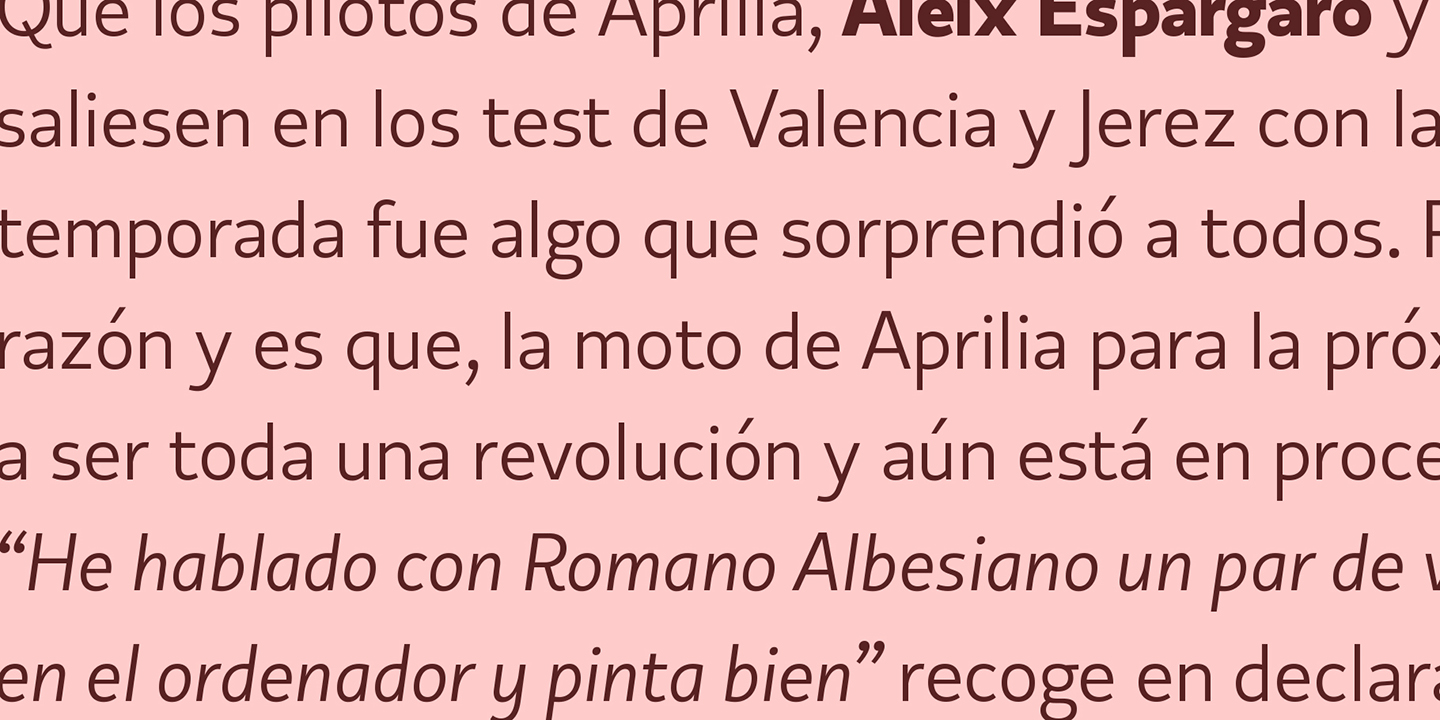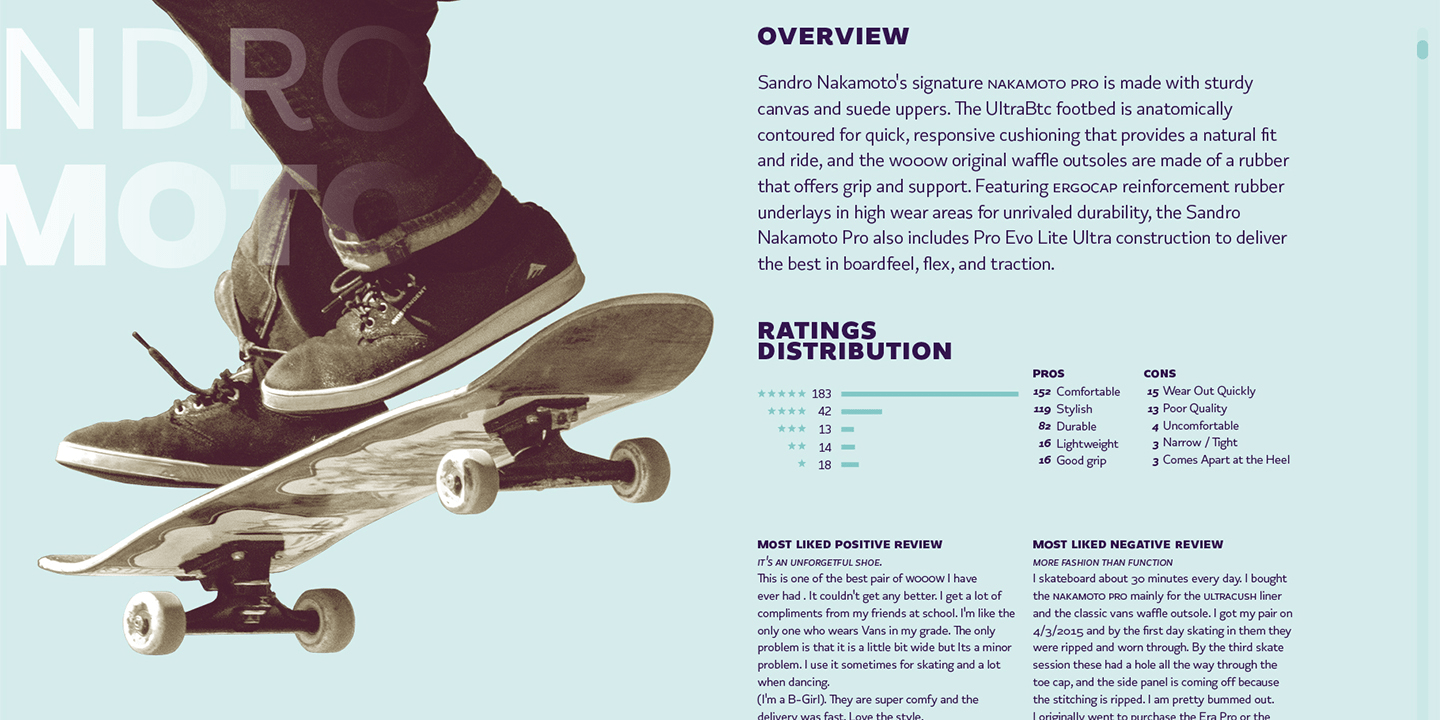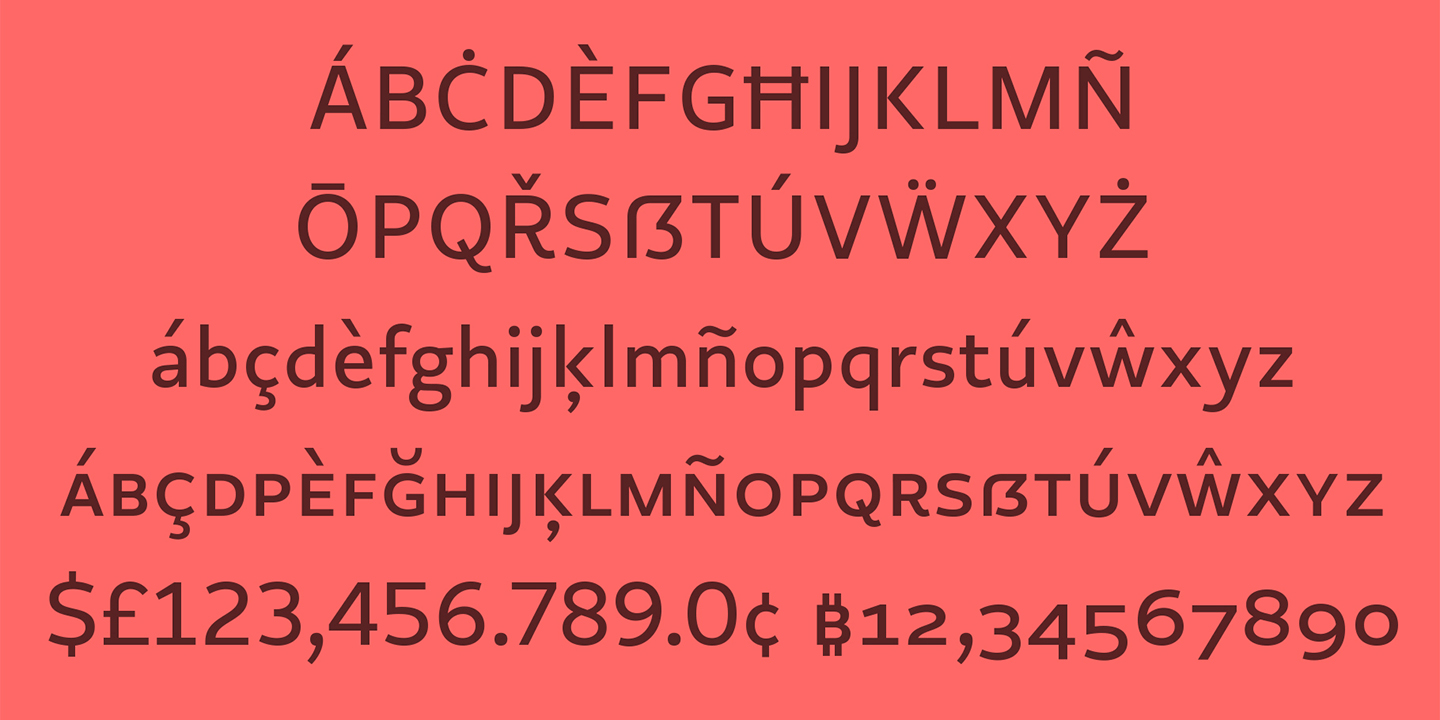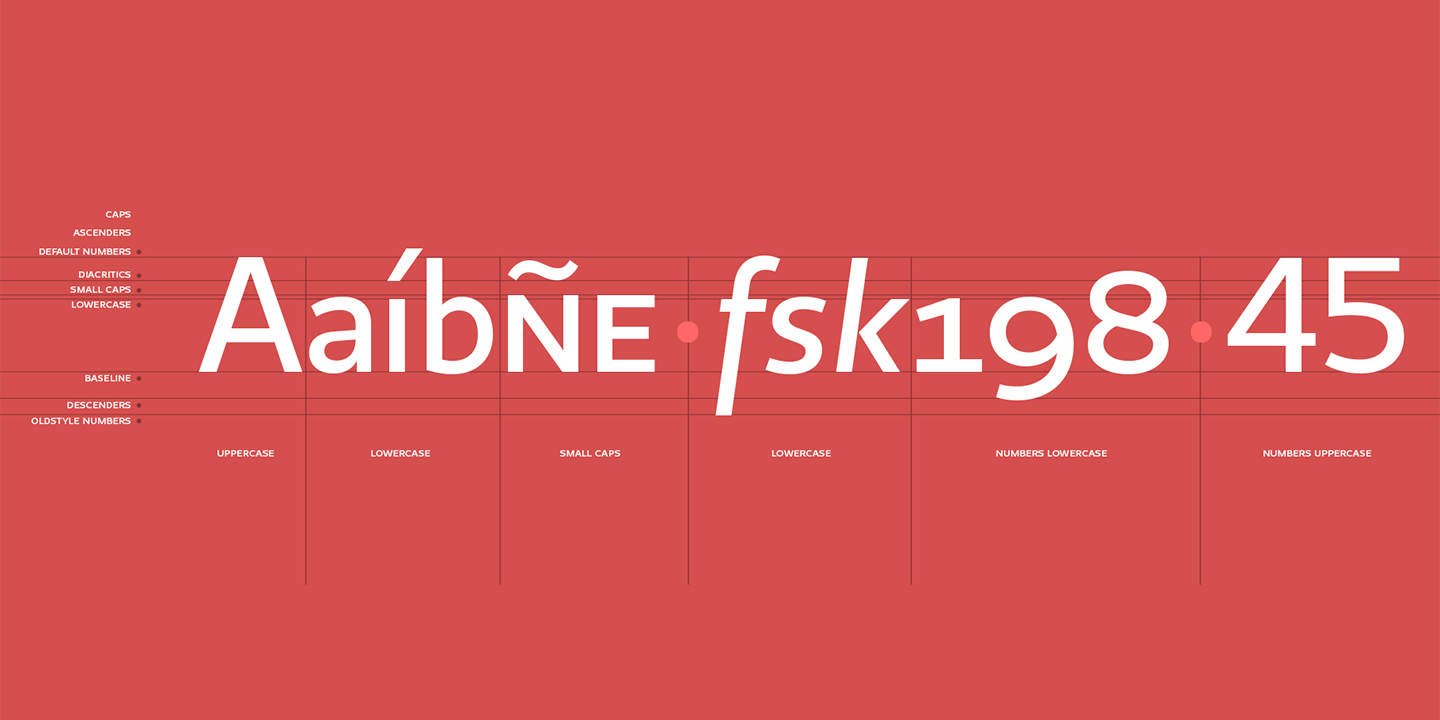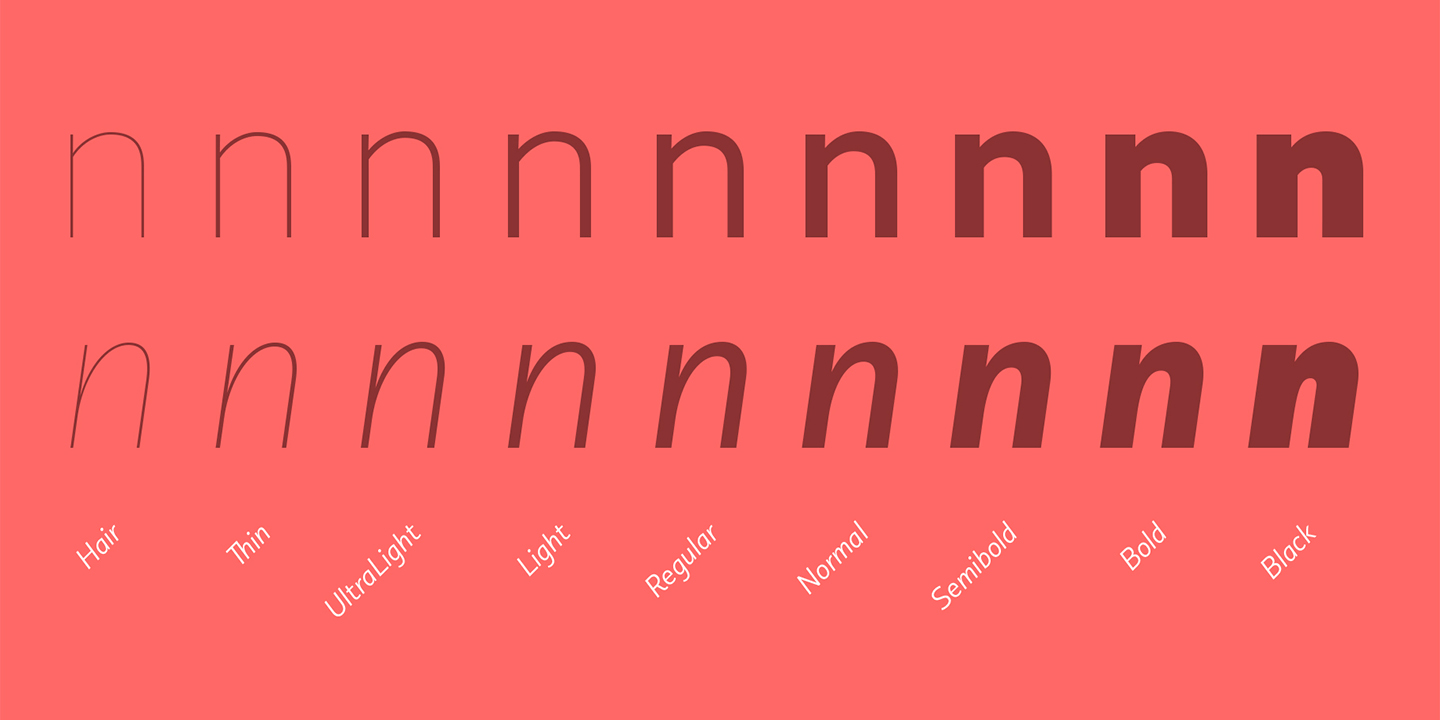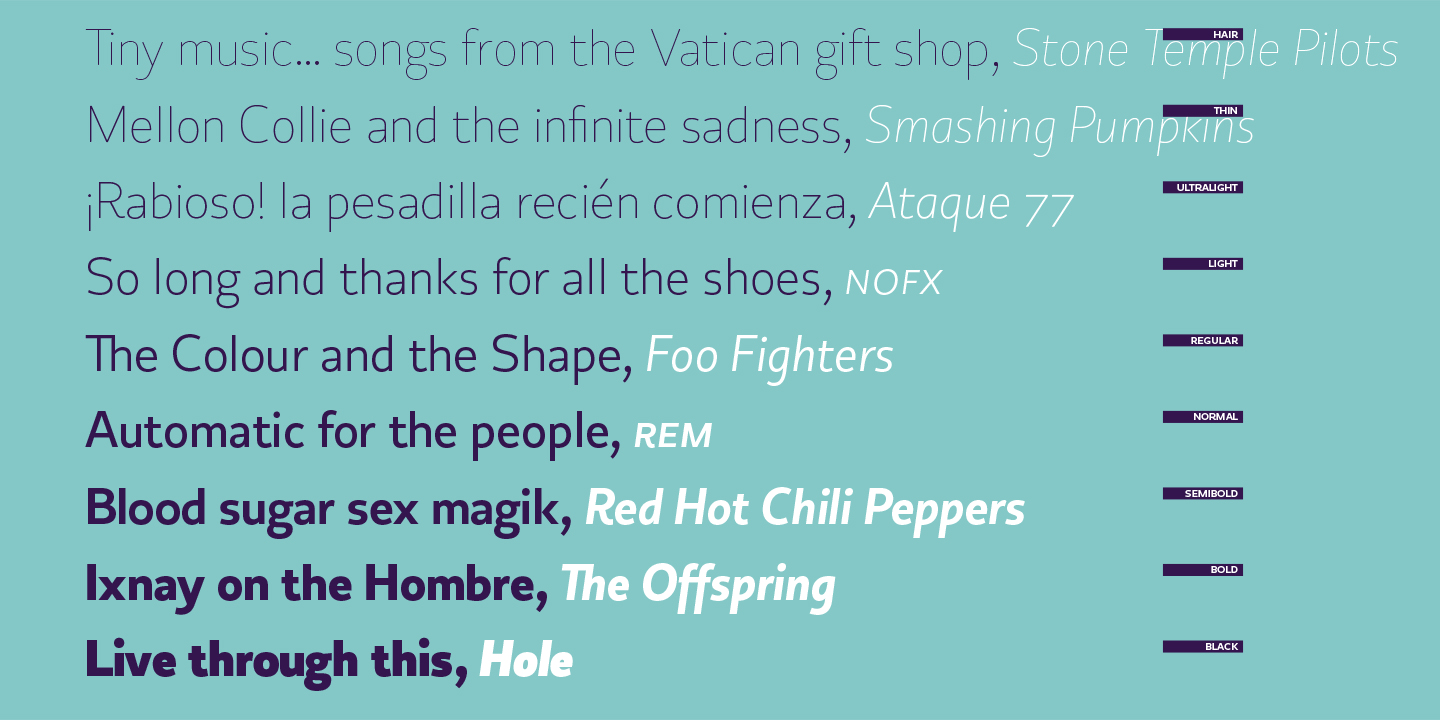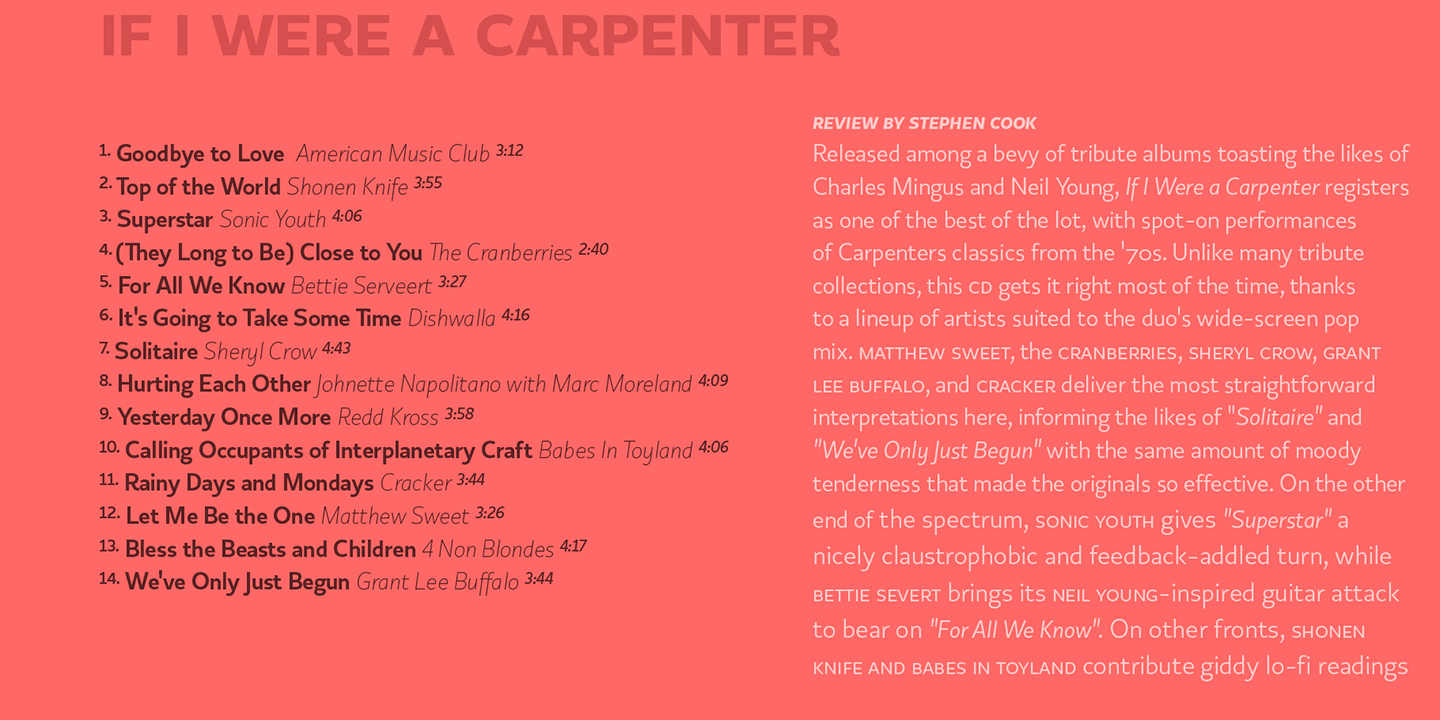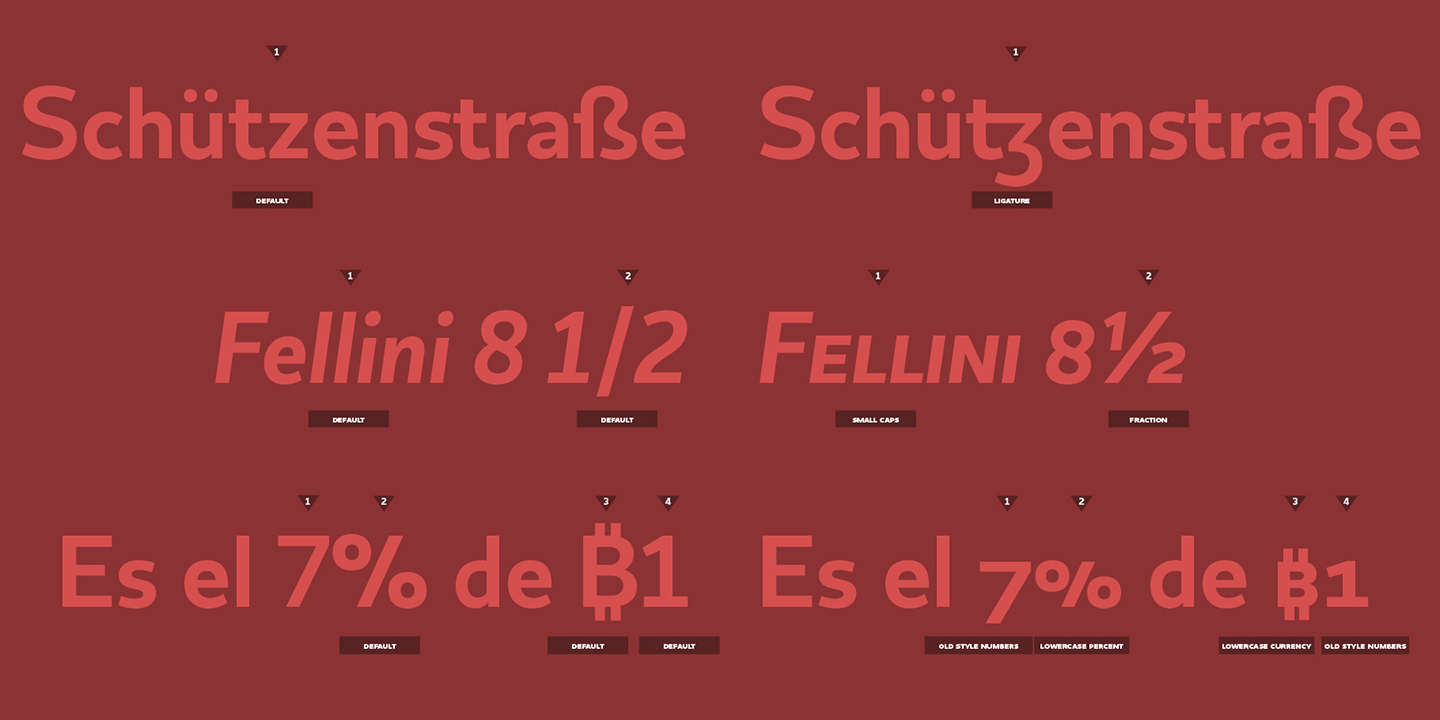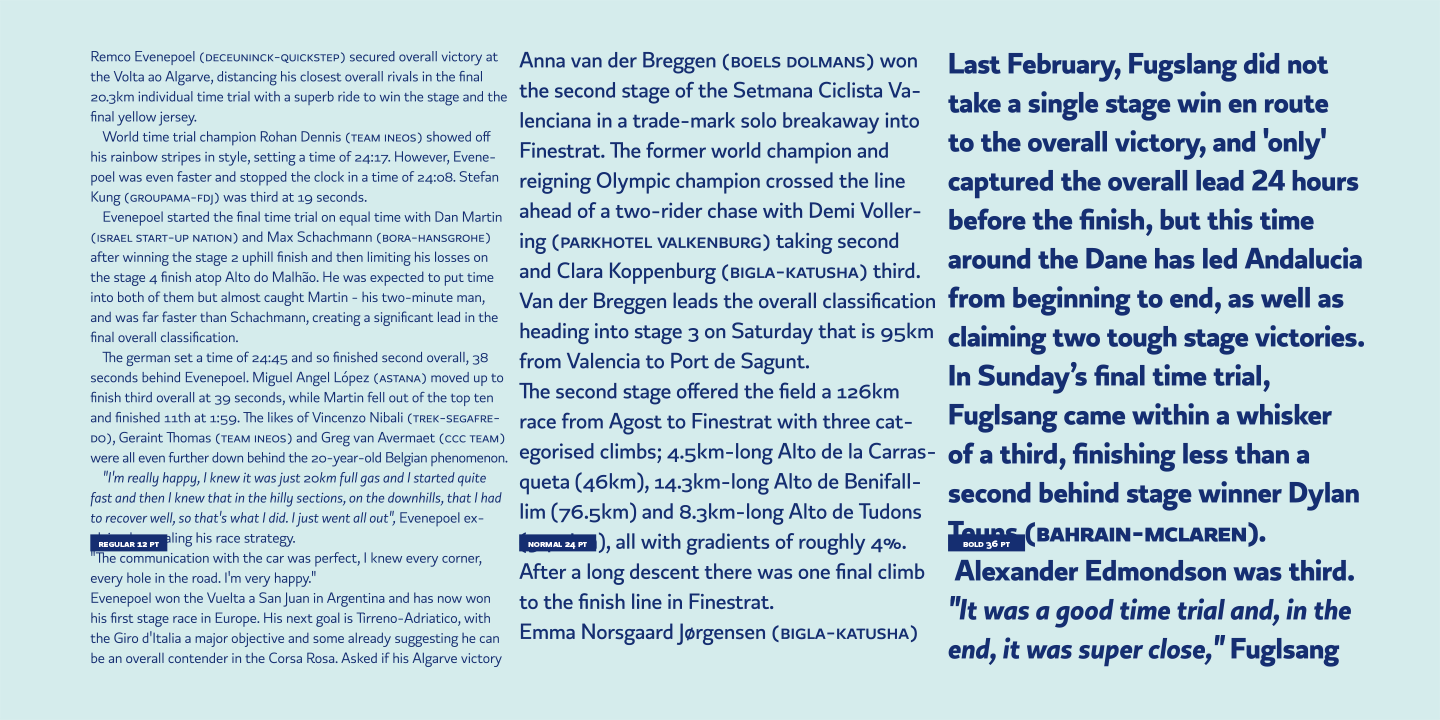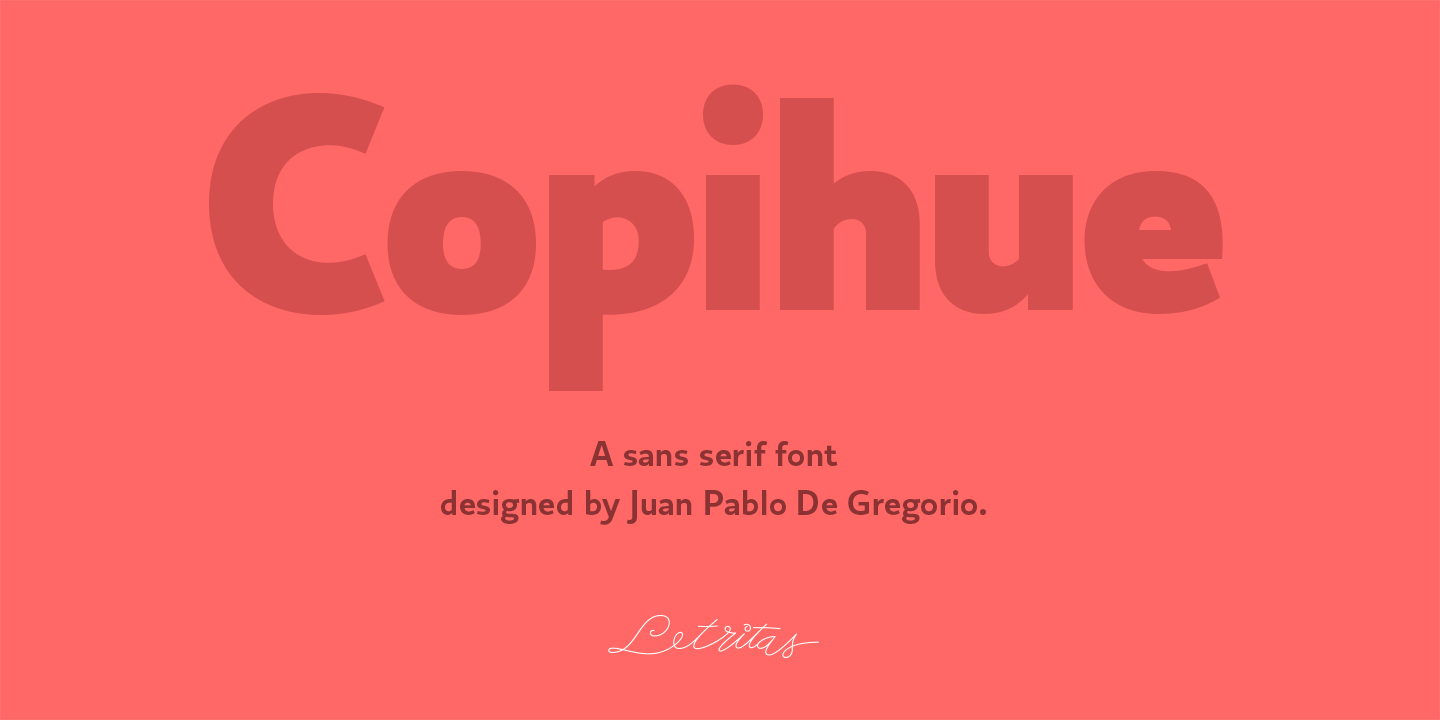
Copihue
About Copihue
Copihue is the newest font from the foundry of Juan Pablo De Gregorio. A Sans-Serif with some humanist hints, it displays simple and subtle yet sober, vivid strokes. This font’s personality unfolds itself as long as we are reading it. The aim…